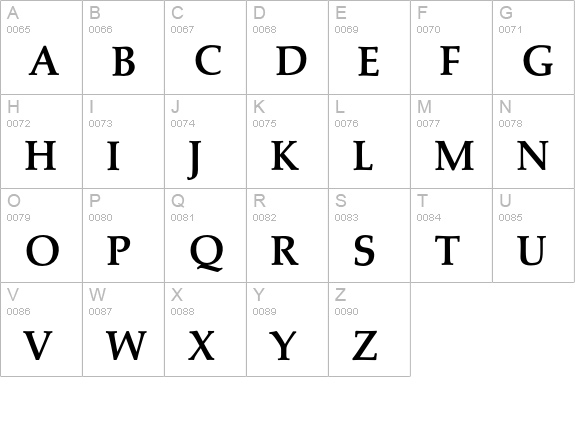
Marath-DemiBold Font Details
Marath-DemiBold is a sub-bold, structured variant in the Marath typeface family \xE2\x80\x94 well suited to sub-headlines and emphasised passages.
Introducing Marath-DemiBold, a versatile and modern font that effortlessly combines elegance with a bold and strong presence. This font exudes confidence and sophistication, making it the perfect choice for any project that requires a touch of finesse and impact. Marath-DemiBold is meticulously designed, with each letter carefully crafted to ensure a seamless and harmonious flow. Its clean lines and well-defined curves add a distinctive touch to any design, whether it's for branding, advertising, or editorial purposes. One of the standout features of Marath-DemiBold is its versatility. It adapts effortlessly to various design styles, from minimalist and contemporary to vintage and retro. This font can easily transform any project, giving it a unique and memorable visual identity. What sets Marath-DemiBold apart is its accessibility. It is freely available to download at FontsMarket.com, ensuring that anyone can enjoy its beauty and versatility without any restrictions. This font is a testament to the power of creativity and accessibility, empowering designers and enthusiasts alike to unleash their imagination without limitations. Whether you're working on a logo, a website, or a packaging design, Marath-DemiBold is the perfect companion to elevate your project to new heights. Its bold and powerful presence will captivate your audience, leaving a lasting impression that is both memorable and impactful. So why wait? Experience the beauty and versatility of Marath-DemiBold today. Download it for free at FontsMarket.com and unlock a world of possibilities for your next creative endeavor.